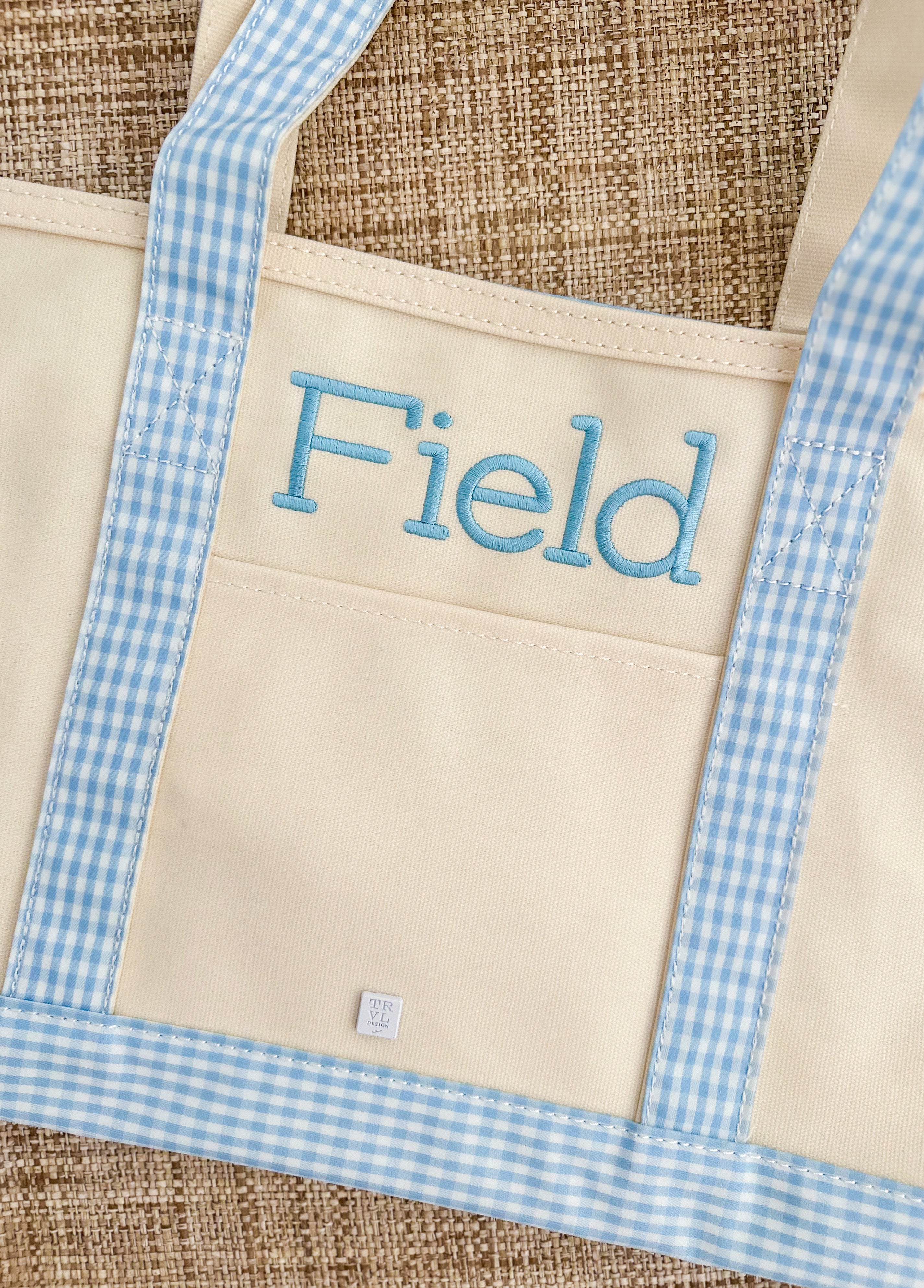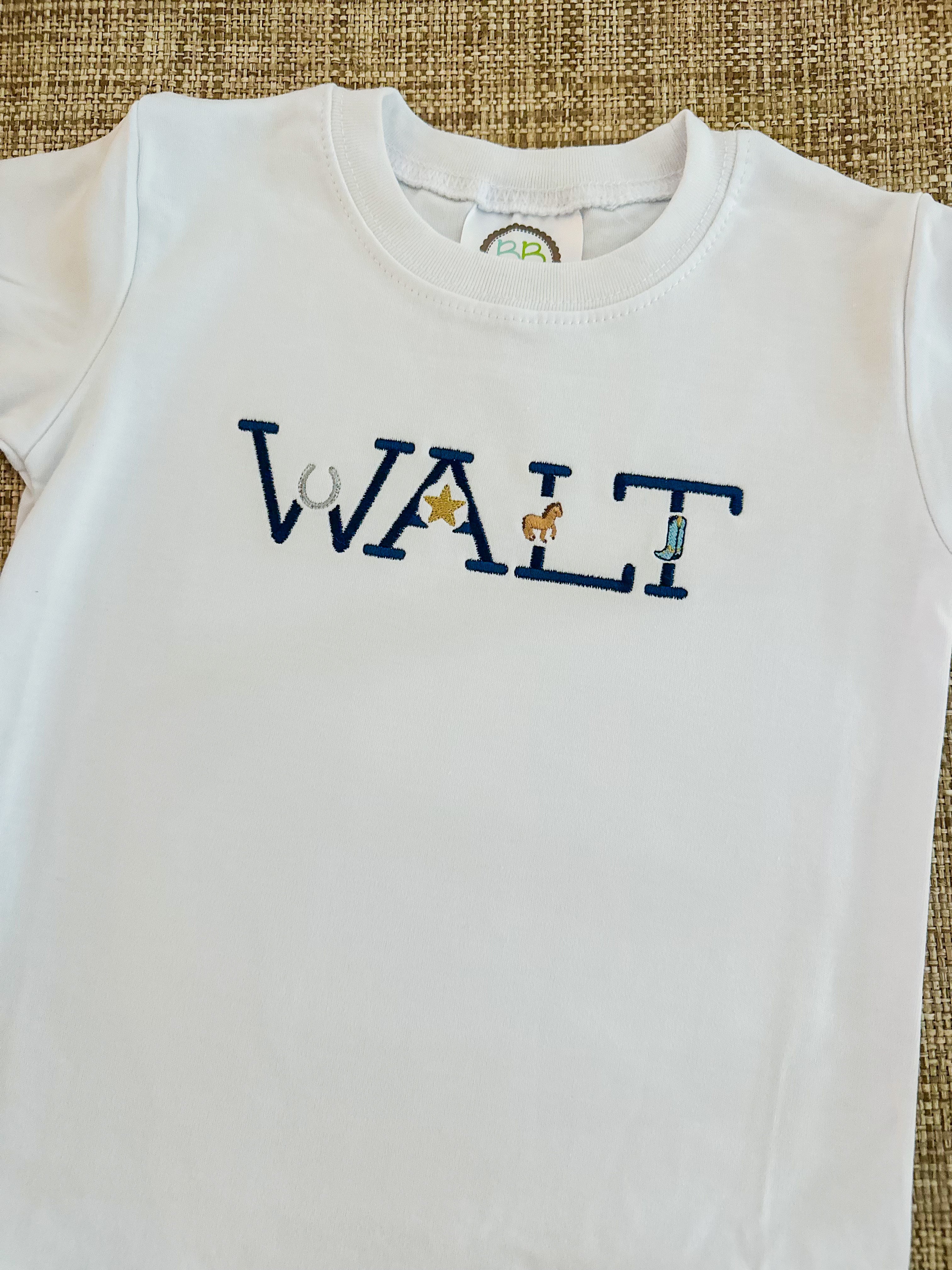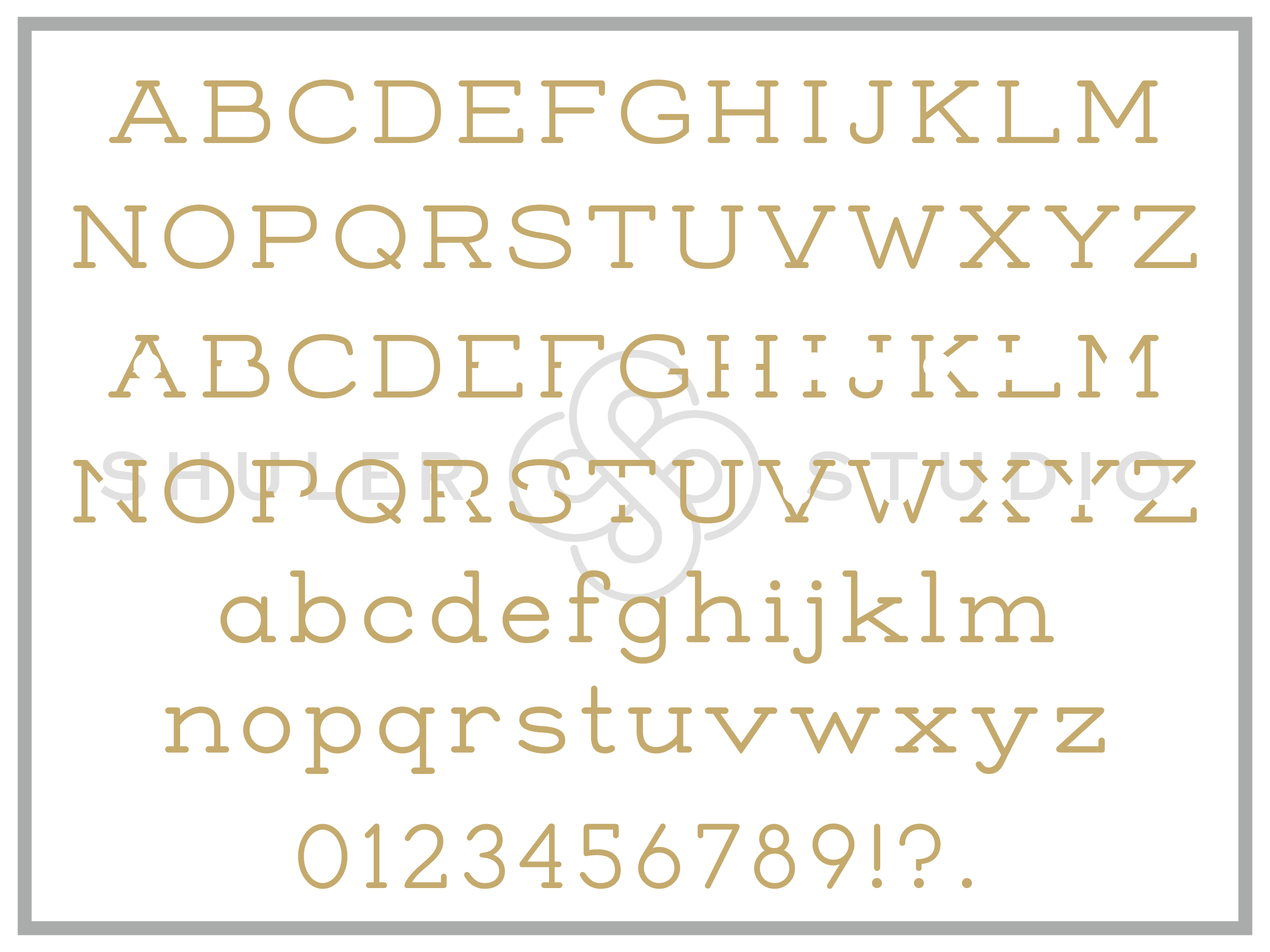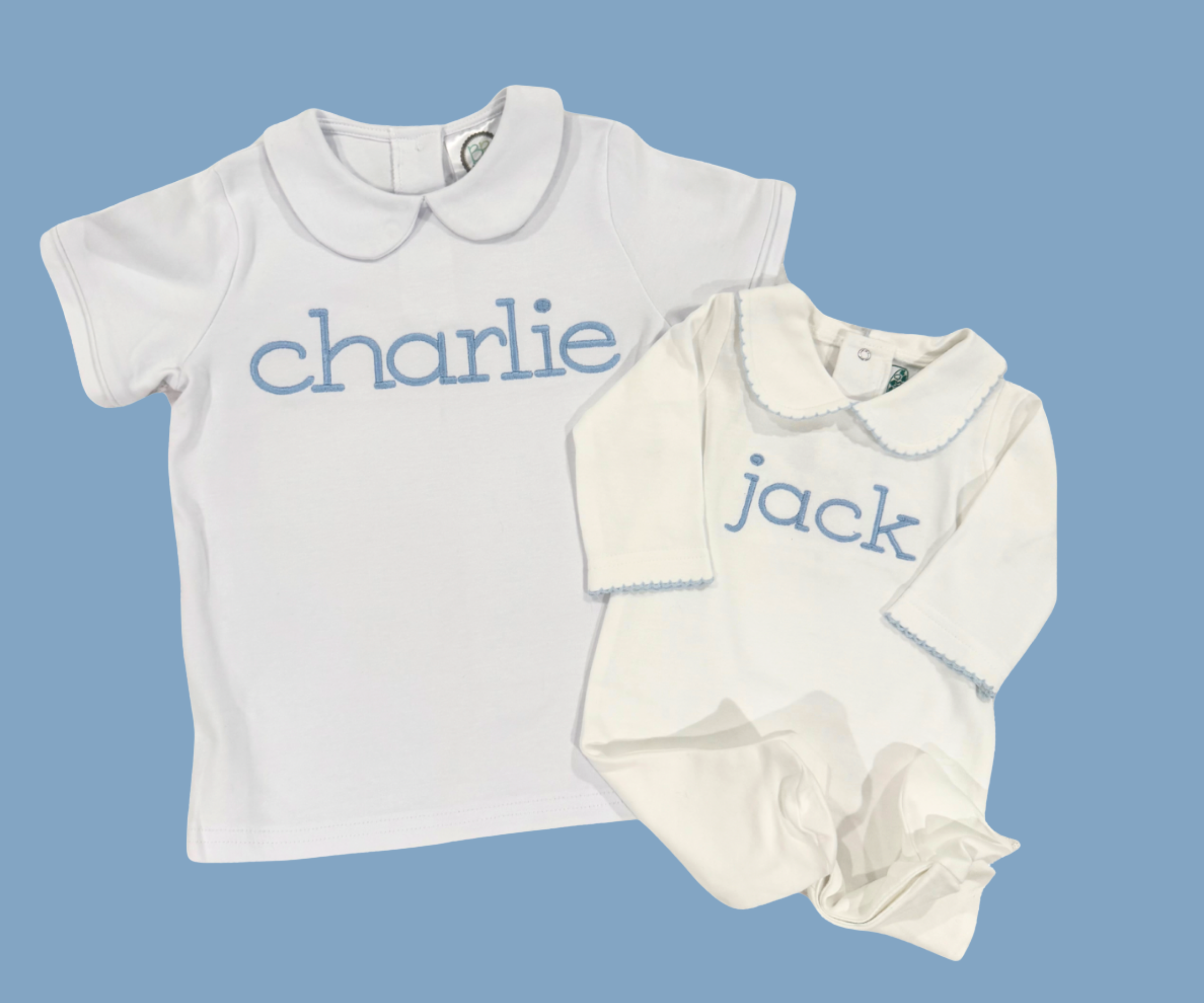
Single Remington Font Set for Embroidery
Mini Plus Sets are small designs that can be used with the Single Remington open-space letters OR on their own. Please click to second product image to see the minis in more detail.
Inspired by the old school Remington typewriters, we developed this timeless typeface with a modern twist.
Our Single Remington Font Set has two fonts in one package and includes so many sizes!
Font Package 1:
26 uppercase letters, 26 lowercase letters, numbers 0-9, 4 punctuation marks.
• Uppercase Letters and Numbers - .5", 1", 1.5", 2", 2.5", 3", 4", and 5" height
• Lowercase letters are proportional to the size of large letters
Font Package 2:
26 uppercase letters with open spaces to allow for mini designs, 26 lowercase letters, numbers 0-9 with open spaces to allow for mini designs, 4 punctuation marks.
• Uppercase Letters and Numbers - 1", 1.5", 2", 2.5", 3", 4", and 5" height
• Lowercase letters are proportional to the size of large letters
Perfect for embroidery, the careful attention in the digitization of each design makes personalization unique and beautiful!